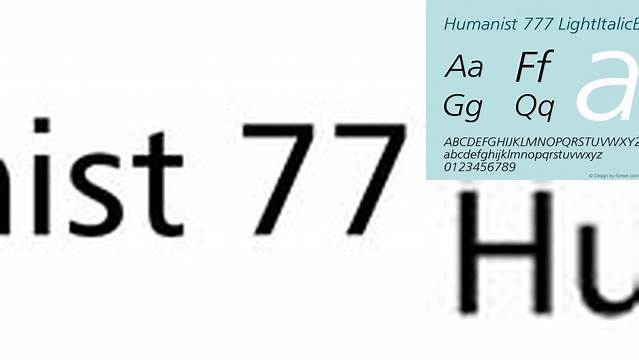
Welcome, font enthusiasts! Today, we're diving deep into the wonderful world of the Humanist 777 STD font family. If you're on the hunt for a typeface that blends timeless elegance with modern readability, you've come to the right place, guys. We're going to explore why this font is such a hit and how you can snag it for your next creative project without spending a dime. Let's get this party started!
Understanding the Humanist 777 STD Font Family
The Humanist 777 STD font family isn't just a single font; it's a collection of weights and styles designed to offer versatility. The 'STD' in its name typically refers to a standard version, often implying a well-established and widely compatible set of glyphs. What makes humanist fonts, in general, so special is their organic, calligraphic influence. Unlike more rigid geometric or grotesque sans-serifs, humanist fonts draw inspiration from handwriting. This gives them a warmer, more approachable feel. The Humanist 777 STD specifically embodies this philosophy, featuring open letterforms, a moderate x-height, and subtle variations in stroke width that mimic the natural flow of a pen. This design approach ensures excellent legibility, even at smaller sizes, making it a fantastic choice for both body text and headlines. When you're working on a design, especially one where you want to convey a sense of professionalism with a friendly touch, this font family really shines. Its structure is based on historical calligraphic forms, but it's been refined for contemporary digital use. This means you get the best of both worlds: the charm of traditional letterforms and the clarity needed for screens and print today. The designers of this font meticulously crafted each character to ensure harmony across the entire family, from the lightest to the boldest weights. This attention to detail is what elevates a good font to a great one. You'll notice the slight contrast in strokes, the subtle curves, and the overall balanced proportions. These aren't just random design choices; they are deliberate decisions aimed at creating a typeface that is both aesthetically pleasing and highly functional. It’s the kind of font that feels comfortable to read for extended periods, which is super important for any long-form content like blog posts, articles, or even books. Plus, its humanist characteristics make it versatile enough to adapt to a wide range of applications, from corporate branding to personal invitations.
Exploring the Aesthetic Appeal of Humanist 777 STD
The aesthetic appeal of the Humanist 777 STD font family lies in its inherent warmth and readability. It strikes a perfect balance, avoiding the starkness of some sans-serifs and the sometimes-overbearing formality of serifs. This 'just right' quality makes it incredibly adaptable. Think about it: you want your text to be easy on the eyes, right? Humanist 777 STD delivers. Its letterforms are generous and well-spaced, reducing visual clutter. The subtle variations in stroke width give it a handcrafted feel, suggesting personality and approachability without sacrificing professionalism. This is crucial for branding, where you want your company's voice to feel both credible and relatable. When people look at your designs, you want them to feel a connection, and this font helps build that bridge. It’s not trying too hard to be trendy, which means it has staying power. Designs that use classic, well-crafted typefaces tend to age gracefully. The Humanist 777 STD is a prime example of this longevity. Its understated elegance means it won't feel dated in a few years. Consider its use in editorial design – magazines and newspapers often rely on fonts that offer clarity and a pleasant reading experience for their readers. This font excels in such environments. It can also add a touch of sophistication to web design, making websites feel more polished and trustworthy. The open apertures of letters like 'a' and 'e' contribute significantly to its legibility, ensuring that even when the font is used in smaller sizes on digital screens, the characters remain distinct. This attention to detail in its construction is what truly sets it apart and makes it a favorite among designers looking for a reliable and stylish workhorse typeface. It’s a font that speaks softly but carries a lot of weight in terms of visual appeal and functionality.
Why Choose Humanist 777 STD for Your Projects?
So, why should the Humanist 777 STD font family be your go-to choice for your next design endeavor, guys? It’s all about the killer combination of functionality, aesthetics, and, importantly, accessibility – especially when you can find it as a free download. First off, its humanist design principles mean it's incredibly readable. Whether you're crafting a lengthy blog post, a detailed report, or just a catchy social media graphic, this font ensures your message comes across loud and clear. No squinting required! Secondly, its aesthetic is wonderfully balanced. It’s not overly decorative, nor is it starkly minimalist. This middle ground gives it a sophisticated yet friendly vibe, making it suitable for a vast array of applications. Think corporate branding that needs to feel trustworthy and approachable, or a wedding invitation that requires a touch of understated elegance. This font nails it. Furthermore, the family usually includes multiple weights (like light, regular, bold), giving you the flexibility to create visual hierarchy within your designs. You can use a lighter weight for captions and a bolder one for headlines, all while maintaining a consistent typographic voice. This consistency is gold in design. When you’re trying to build a brand identity or simply make your content flow logically, having a versatile font family like Humanist 777 STD is a huge advantage. It saves you time and the headache of trying to find multiple fonts that work well together. Plus, its classic proportions and open forms make it resistant to fleeting design trends, ensuring your work looks good not just today, but also in the future. It's a reliable workhorse that delivers performance and style consistently.
Key Characteristics of Humanist 777 STD Fonts
Let's get down to the nitty-gritty, shall we? The Humanist 777 STD font family boasts several key characteristics that make it stand out. One of the most defining features is its open letterforms. Notice how letters like 'a', 'c', 'e', and 's' have wider openings? This isn't accidental; it significantly boosts legibility, especially on lower-resolution screens or when text is viewed from a distance. It prevents letters from blurring together, ensuring clarity. Another hallmark is the moderate contrast between thick and thin strokes. Unlike fonts with extreme variations (high contrast) or uniform strokes (low contrast), humanist fonts like 777 STD offer a subtle, natural-looking contrast. This mimics the natural pressure variations of handwriting, lending a touch of organic warmth and sophistication. The x-height is typically generous. The 'x-height' refers to the height of the lowercase letter 'x' and, by extension, the height of most lowercase letters. A larger x-height generally improves readability, as the main body of the letters is more prominent. You'll also find that the ascenders and descenders are relatively moderate. Ascenders are the parts of letters like 'h', 'k', 'l' that extend upwards, and descenders are the parts of letters like 'p', 'q', 'y' that extend downwards. Their balanced length prevents the text from feeling too cramped or too spread out. The overall structure is often based on calligraphic principles, giving the letters a fluid, slightly irregular quality that feels more human and less mechanical. Finally, the kerning pairs are usually well-optimized. Kerning is the adjustment of space between specific pairs of letters to improve visual appeal and readability. Good kerning ensures that combinations like 'AV' or 'To' don't have awkward gaps. These combined characteristics result in a typeface that is not only beautiful to look at but also incredibly practical for a wide range of uses, from print to digital interfaces.
When you land on these sites, search for "Humanist 777 STD" or variations. Pay close attention to the license information provided. It will usually specify if the font is free for personal use, commercial use, or both. If you intend to use the font for a business, project, or anything that generates income, commercial use is non-negotiable. Downloading from these trusted sources not only ensures you get clean font files but also supports the continued availability of free resources for the design community. Always double-check the terms, and if in doubt, reach out to the designer or stick to fonts with very clear open-source licenses.
Think of early Italian printers like Aldus Manutius and Nicolas Jenson. They were inspired by the handwritten manuscripts of the time, which themselves were derived from ancient Roman capitals and the elegant, readable Carolingian script. This connection to handwriting is the defining characteristic of humanist fonts. Unlike the later, more rigid